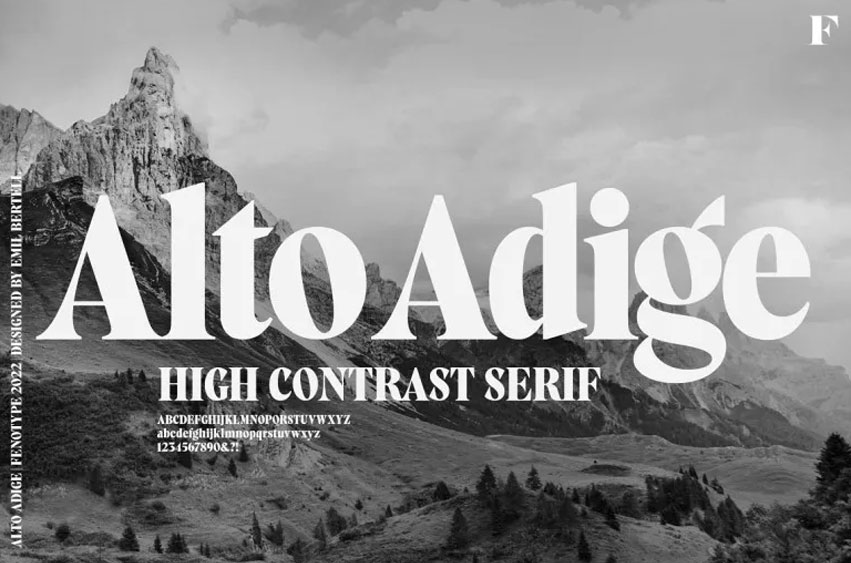
Alto Adige Font
Alto Adige Font is a high-contrast display typeface named for Italy’s northernmost region and features narrow lines and bold contrast for optimal use as headlines packaging posters, magazines, posters or advertising as well as any other display needs. Due to its large x-height feature it makes Alto Adige ideal for text blocks with strong leadings.
If you are working with large sizes, tighter tracking might also increase impact. Alto Adige comes equipped with many OpenType features to maximize impact; Contextual Alternates and Standard Ligatures automatically turn on for certain character pairs; in addition to over 50 alternatives for capital letters available as Swash, stylistic, and Titling Alternates.